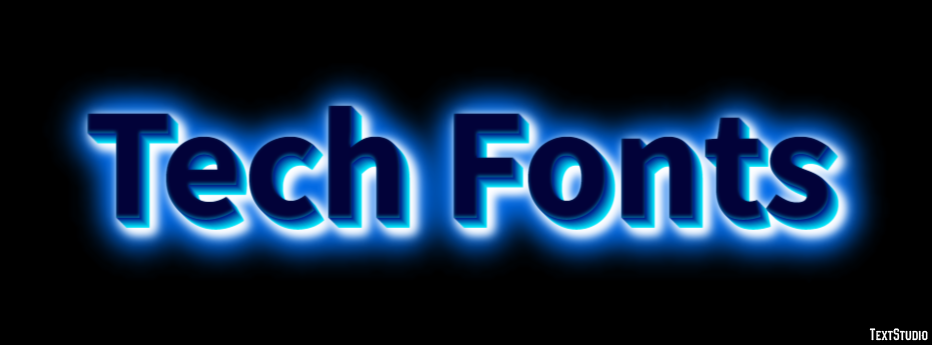
3D text with blue glow
Transform your text into eye-catching masterpieces with our font style text effect generator. Create stunning 3D designs with a vibrant blue neon glow that will make your words pop off the screen. Unleash your creativity and add a bolt of excitement to your projects!